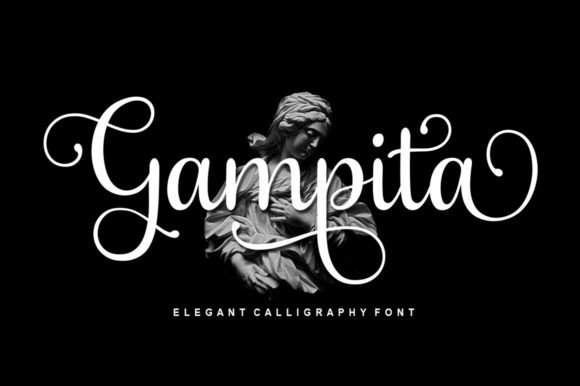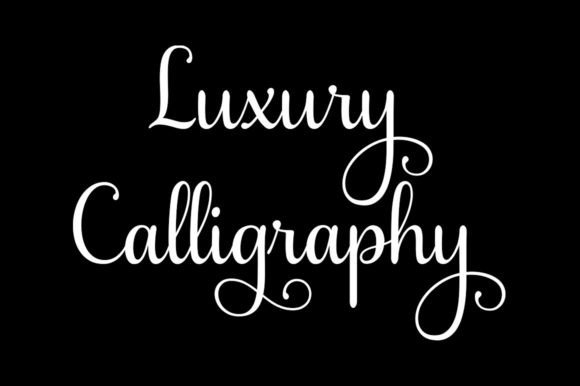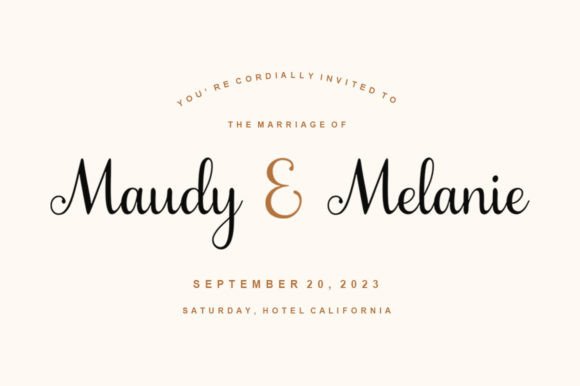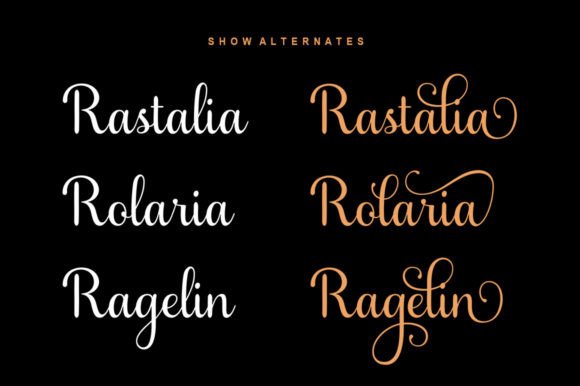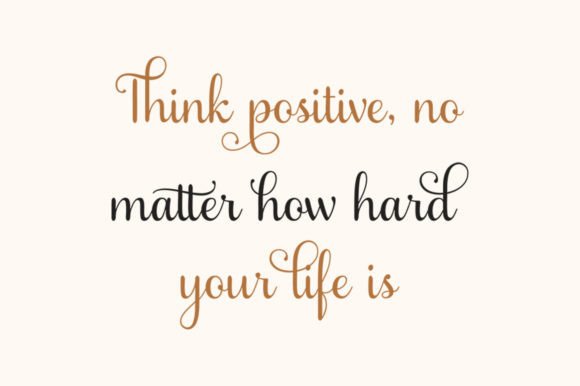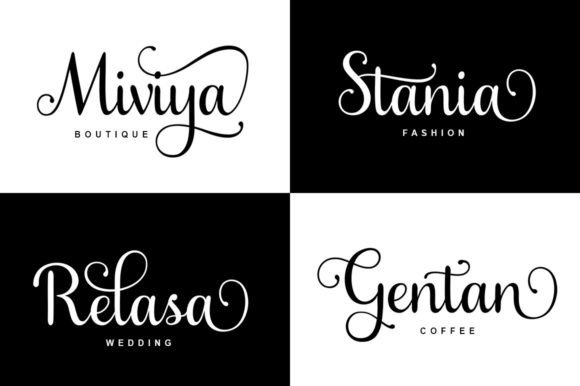
About Gampita Font
Gampita is a dazzling script font. This font is neatly crafted and highly detailed. Whatever the topic, this font will be a wonderful asset to your font library, as it has the potential to enhance any creation.